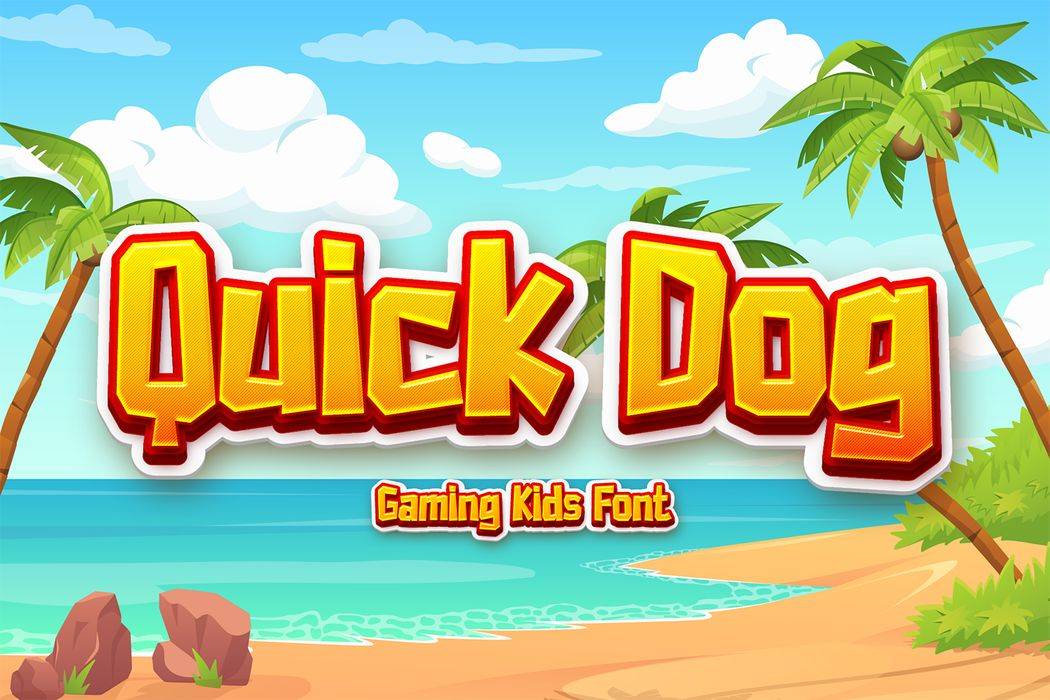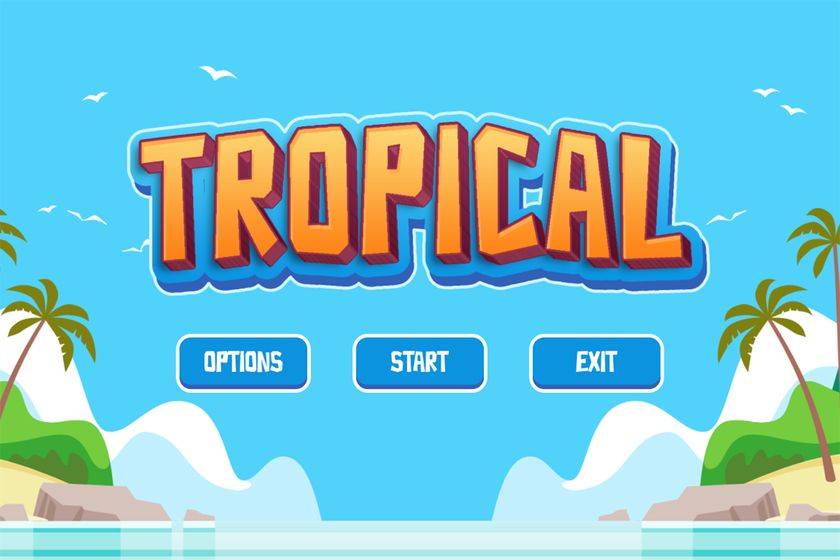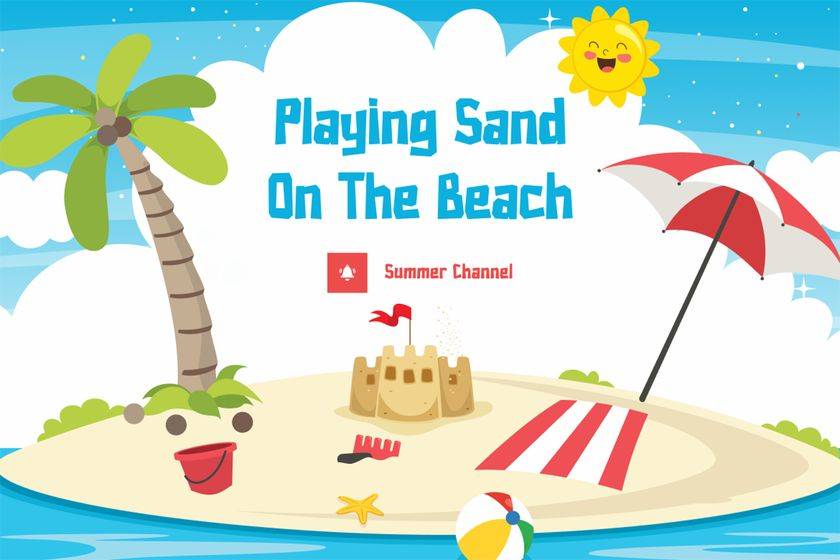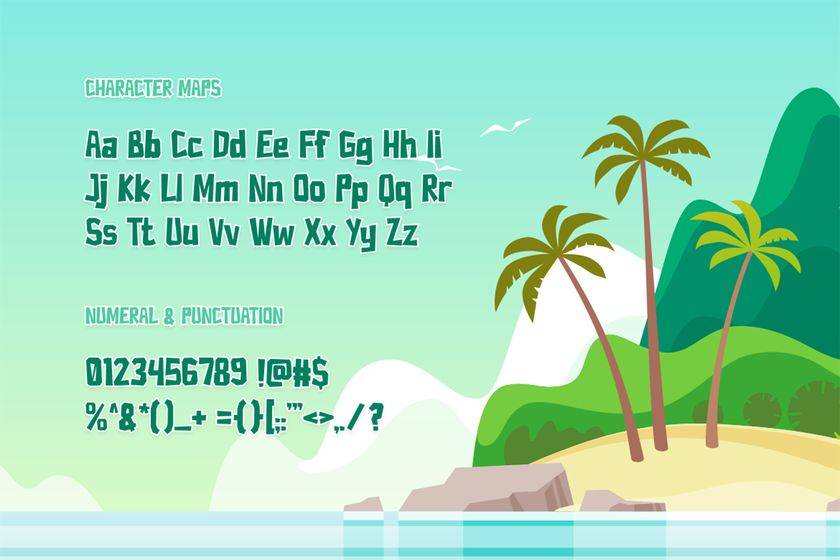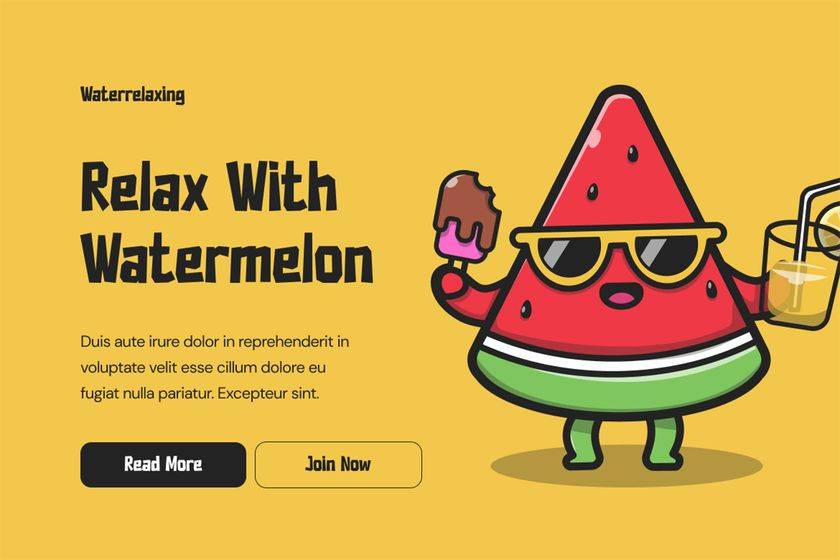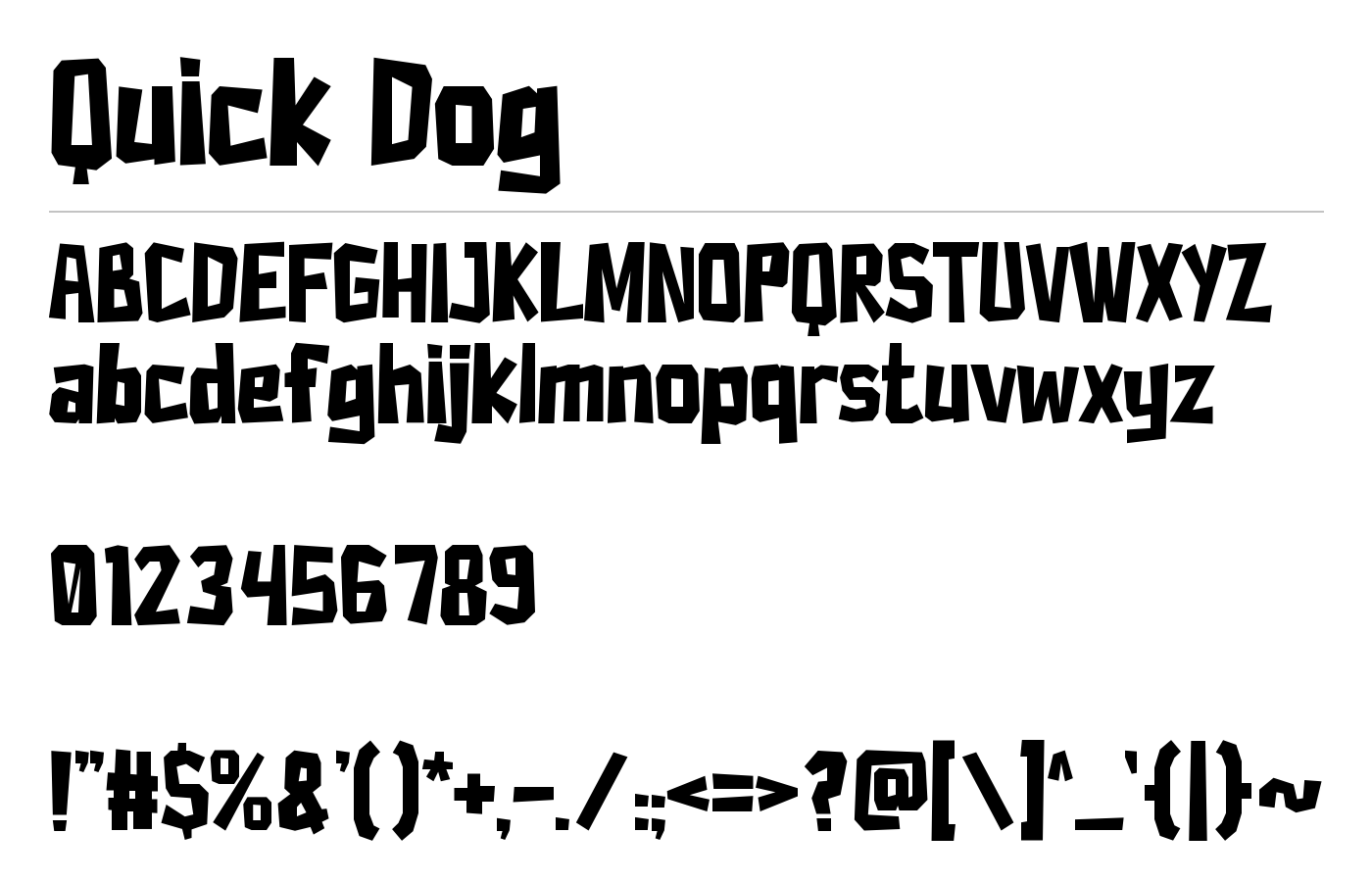
Quick Dog is a bold, playful sans serif font with an energetic and slightly irregular character. Its strong, chunky letterforms with sharp angles and uneven stroke widths give it a dynamic, hand-crafted feel, perfect for adding personality and impact to headlines, posters, and branding that seeks a fun, lively vibe. This font works especially well where a casual, approachable style is desired without sacrificing bold visibility.
Quick Dog Font
About Quick Dog Font
| Font family | Quick Dog Font |
| Designer | PINISIART Team |